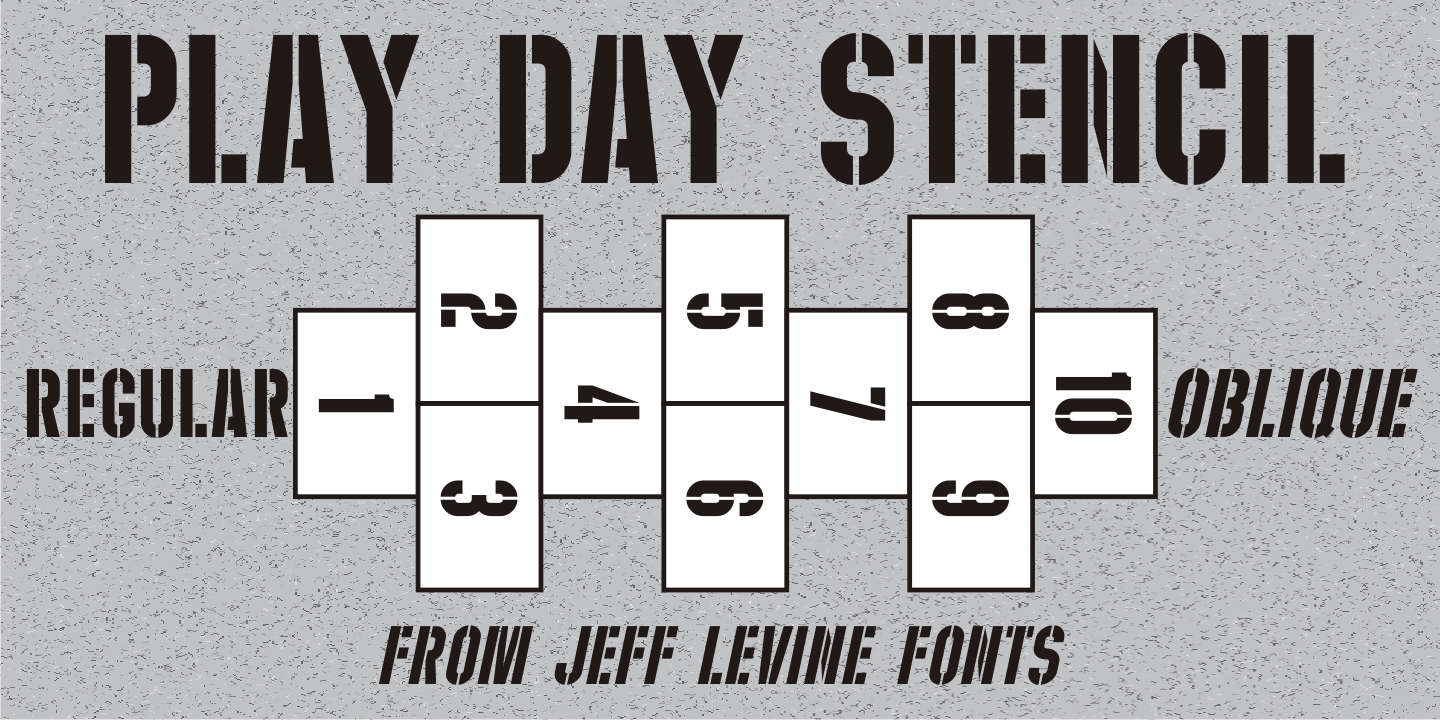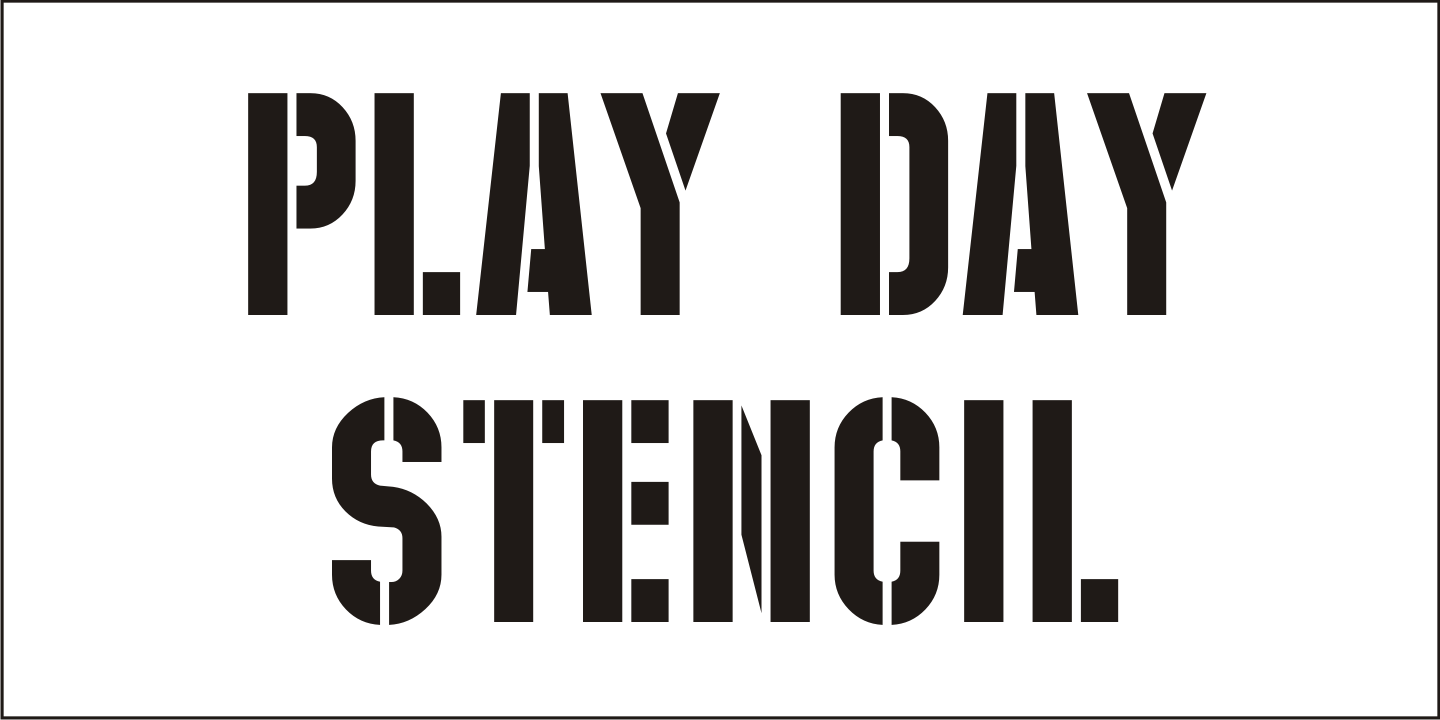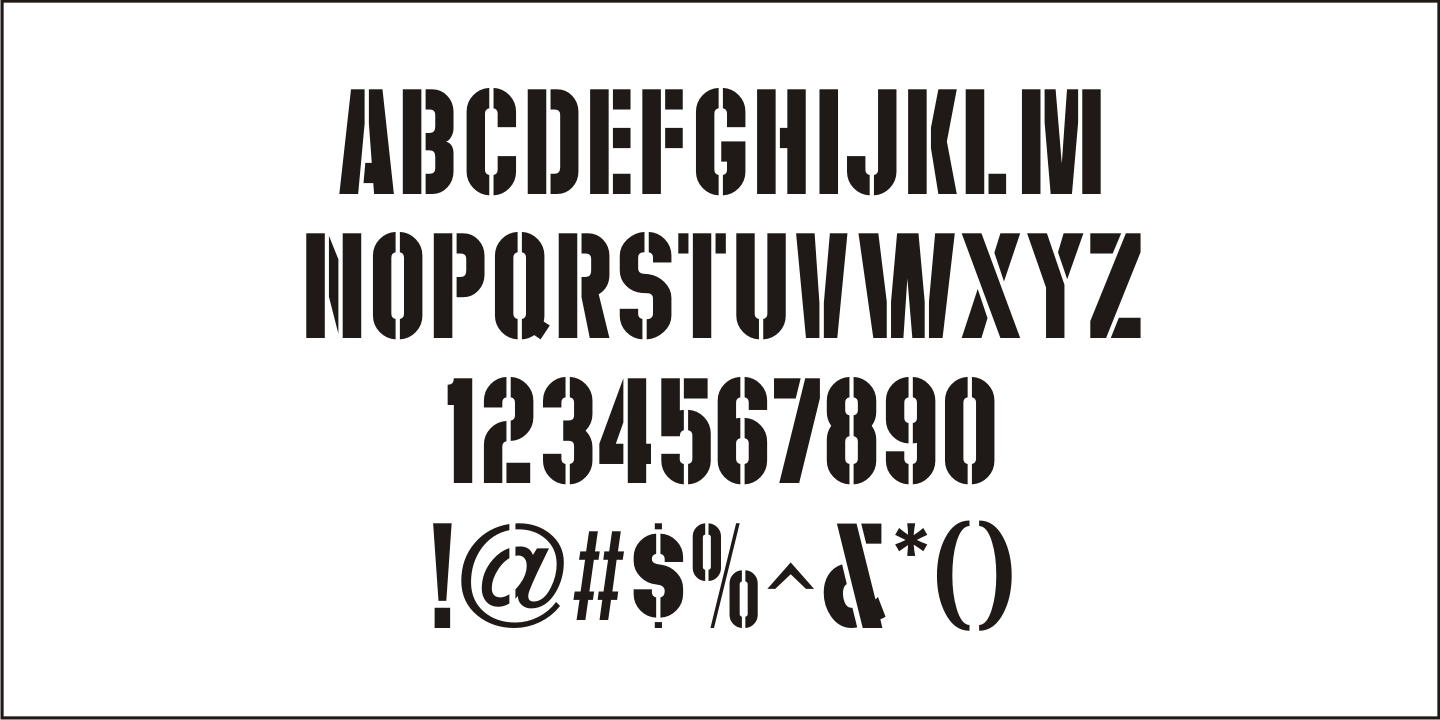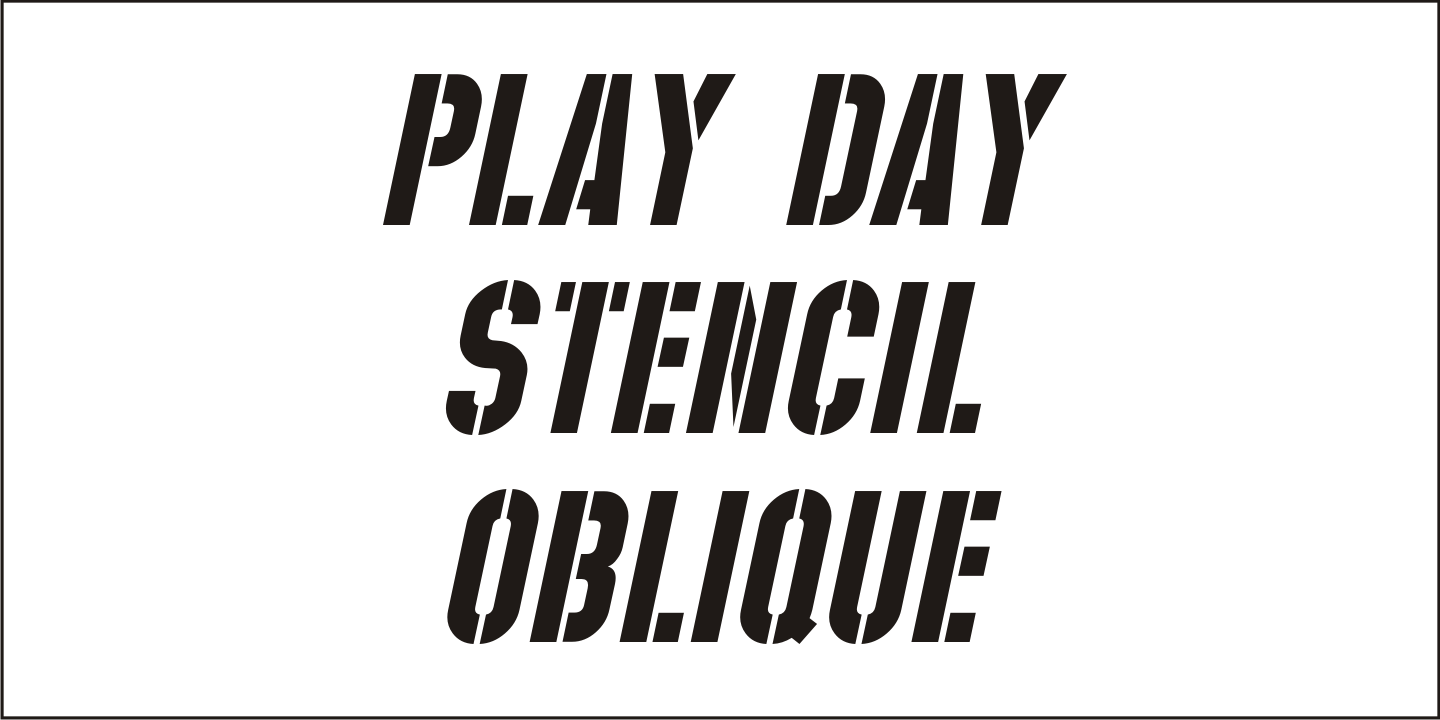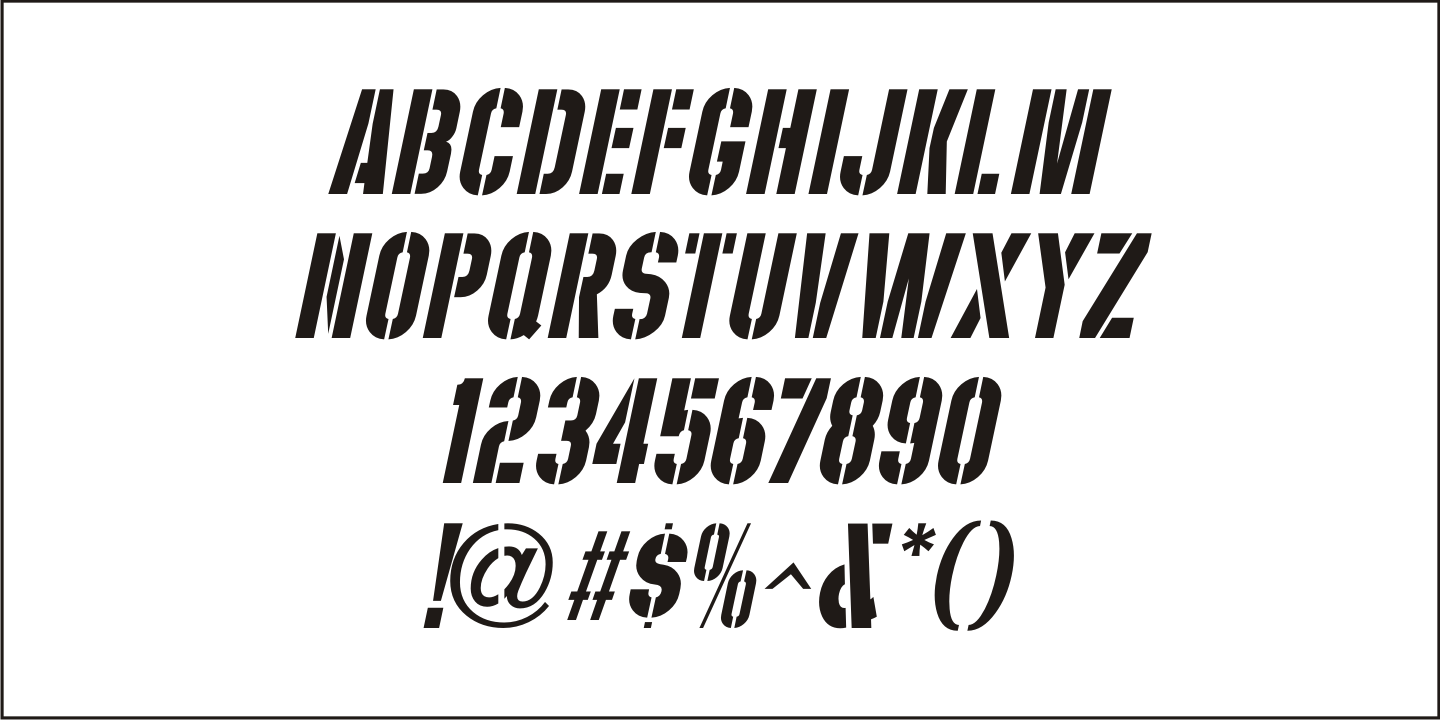
Play Day Stencil
The typography on a 1964 children's activity book published by Whitman entitled 'Build with Stencils' was in a bold, condensed design. The only problem was that the 'rails' [the parts that divide a letter into stencil pieces] were too narrow and would disappear at smaller point sizes. Widening the 'rails' just a bit greatly improved the appearance of the stencil characters.
Play Day Stencil JNL is now available in both regular and oblique versions.
In its day, the Whitman Publishing Company of Racine, Wisconsin published dozens of activity books for children, including a number of them with stencils. The company was a division of Western Publishers from the early 1900s through the 1970s, but went through a number of sales and name changes.